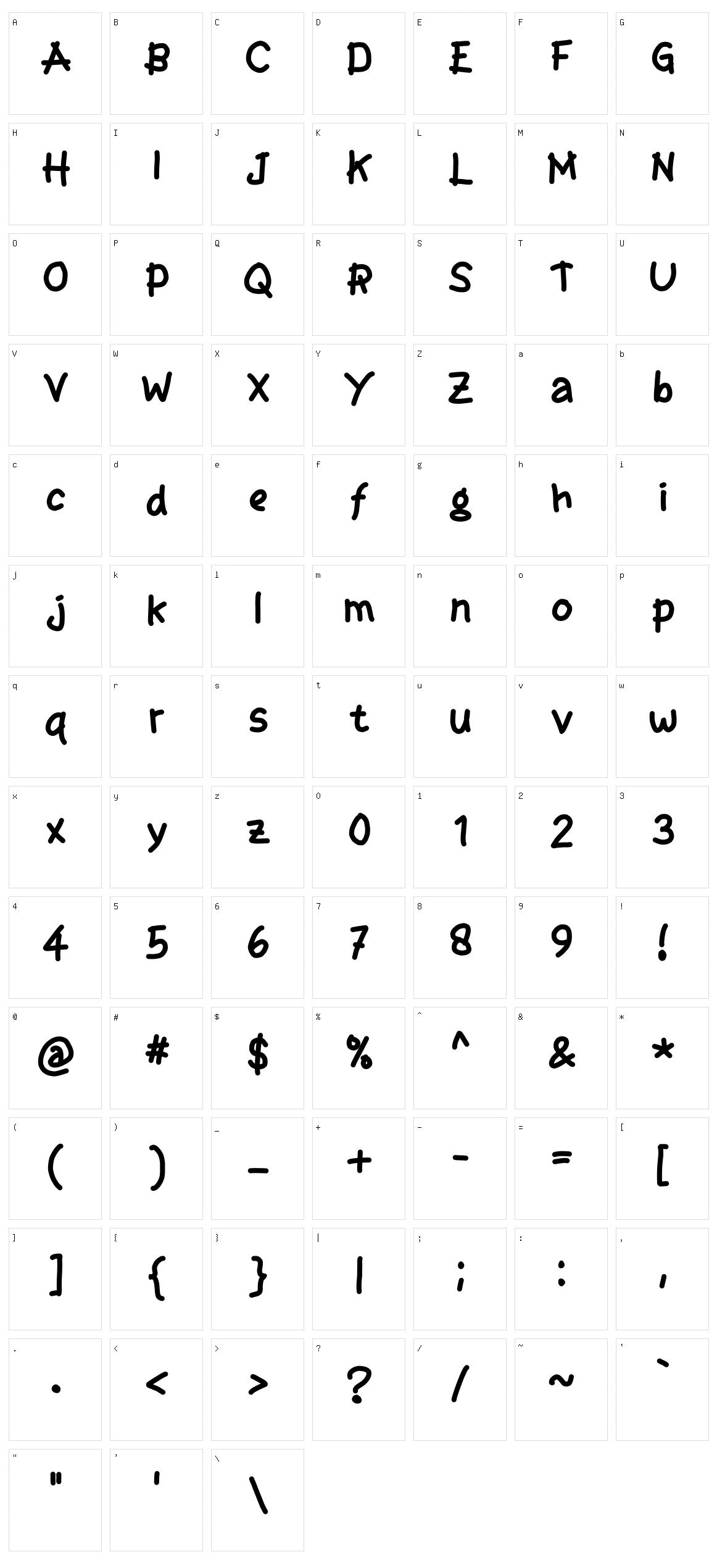
The free font Telo is carefully designed by adhie, showcasing a thoughtful balance of creativity and usability and falls under the Script font style. When you download the ZIP file, it contains only 21.79 KB of font files, making it lightweight and quick to download. Please review the license details below to understand permitted usage and distribution rights. If license information is not available, we recommend using this font for personal projects only or contacting the author directly for commercial usage permissions.